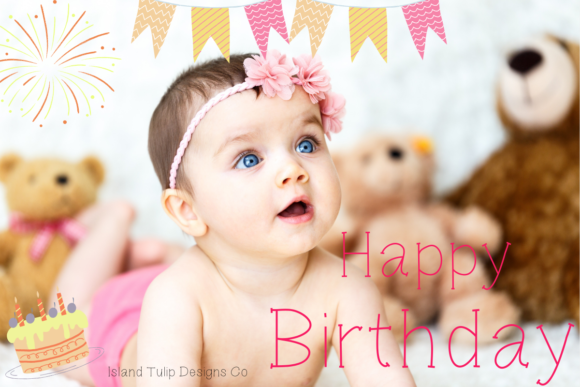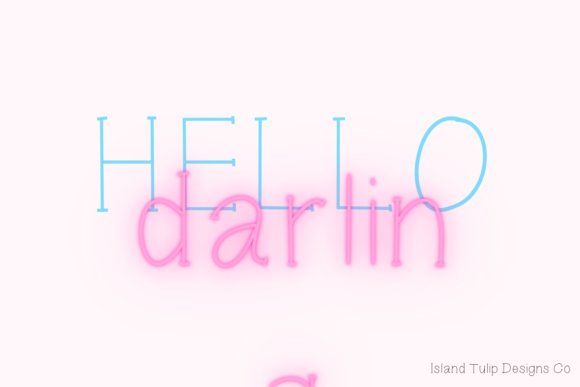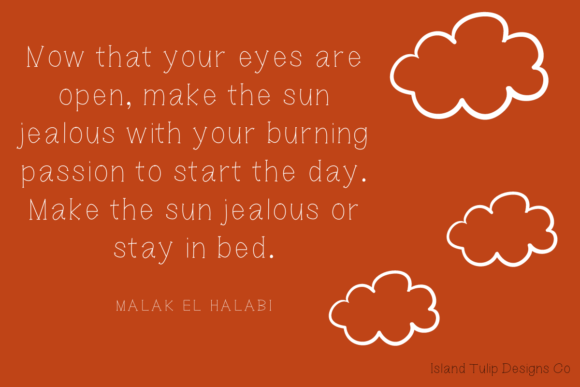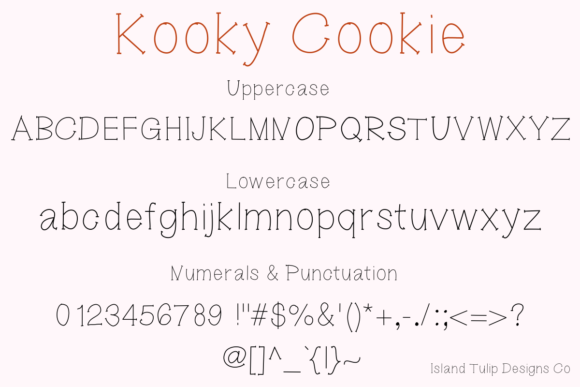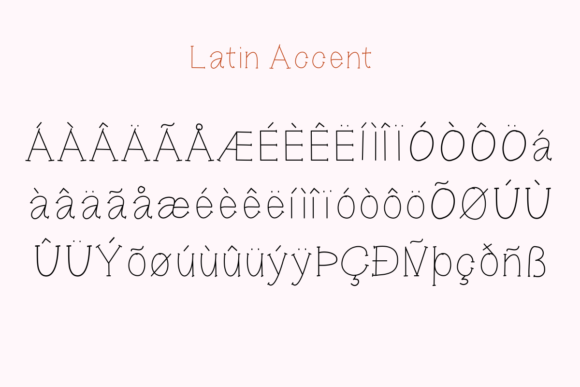
Introduction to Kooky Cookie Font
Kooky Cookie is a slim and tall looking serif font.
Use it to bring out the playfulness and utter cuteness in your invitations, planners, T-shirt designs and more .
Key Features of Kooky Cookie Font
Why Choose Kooky Cookie Font?